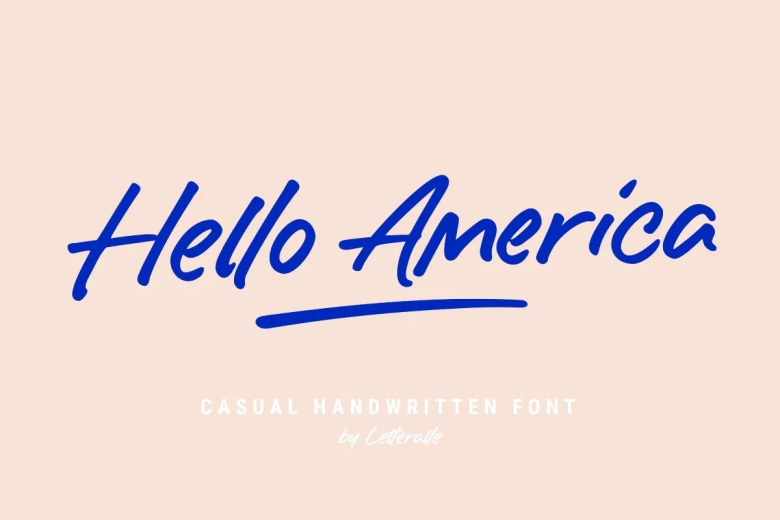
Hello America Font
Introducing Hello, America! This silky smooth handwritten script font is full of personal charm Click here and find out more about Hello America comes equipped with stylish alternates swashes ligatures to recreate that tailor made look and avoid boring impressions.
This font also comes with multilingual support. Hello America is appropriate for all of you who work in design from product packaging to merchandise social media design a T-shirt Logotype and so forth.
Hello America Handwritten Script Font